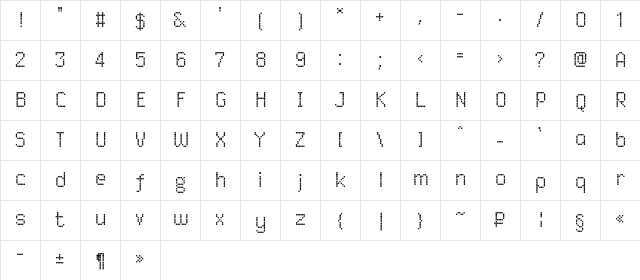
Dited Regular
| Foundry | Oleg Zhuravlev (Creatica), Jovanny Lemonad |
| Designer | Oleg Zhuravlev, Jovanny Lemonad |
Design Context for Dited Typeface
Dited offers clean, dependable letterforms without strong stylistic allegiance, making it a practical choice for designers who need flexibility.